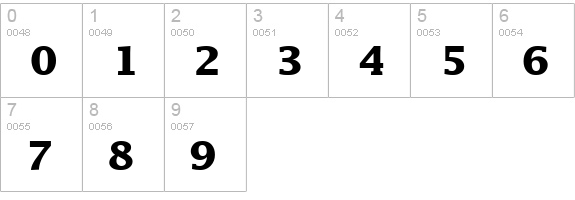
TR America Bold Font Details
TR America Bold is a strong, high-contrast variant in the TR typeface family \xE2\x80\x94 well suited to headlines, attention-grabbing titles, and strong calls-to-action.
TR America Bold is a modern and versatile font that exudes confidence and strength. Its bold and impactful design makes it perfect for headlines, logos, posters, and other display purposes. The sharp edges and clean lines give this font a sleek and professional look that is sure to make a statement. What sets TR America Bold apart is not only its striking appearance but also the fact that it is available for free download at FontsMarket.com. This means that you can easily access this high-quality font without any cost, making it a valuable addition to your design toolkit. Whether you are a professional designer or just starting out, TR America Bold offers a bold and stylish option that will elevate your projects to the next level. Download TR America Bold for free today and unleash its power in your designs!